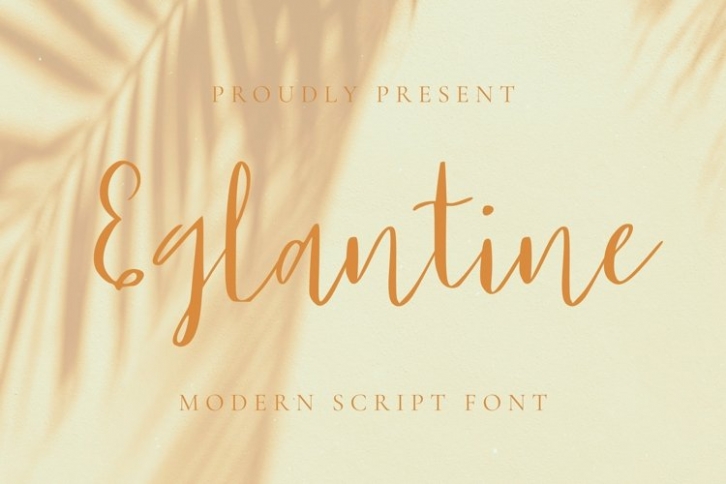
Web Eglantine is a trendy and unique font with an authentic style. It was designed by plusstore and it's a great choice for creative people who need such a font. It was released on April 29, 2021 and the file size is 20.52 MB. Web Eglantine will add an organic vibe to any design idea!